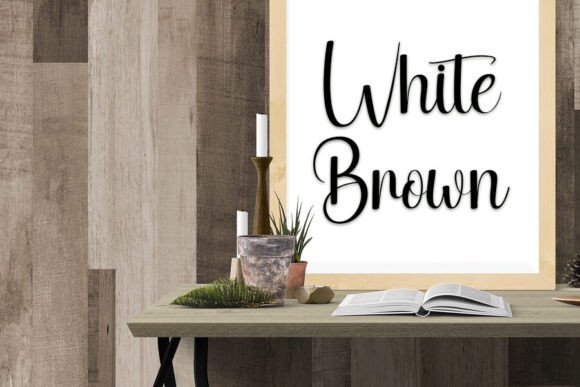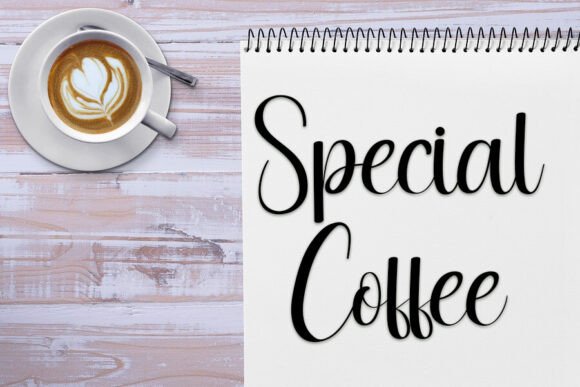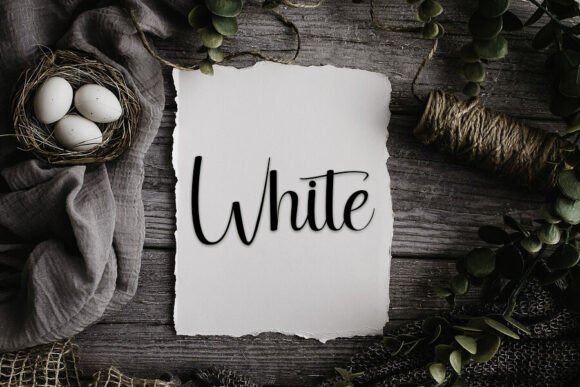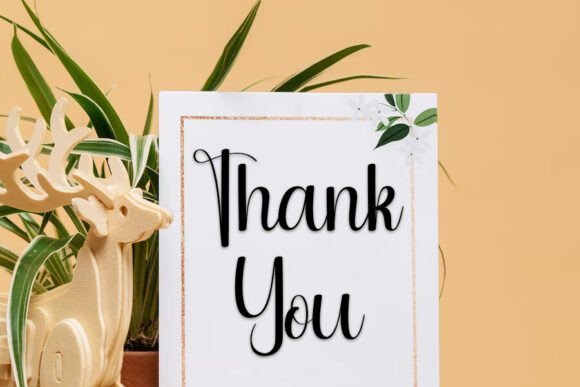
Unleash Elegance with Automatic Font: Elevate Your Designs to New Heights
In the realm of design, the right font can make all the difference. It can elevate your project from ordinary to extraordinary, conveying your message with clarity and style. If you’re on the hunt for a font that combines minimalist simplicity with stunning elegance, look no further than “Automatic.” This uniquely crafted font is designed to breathe life into your creative endeavors, offering a refreshing blend of sophistication and charm.
The Versatility of Automatic Font
One of the standout features of Automatic is its striking versatility. Whether you’re crafting captivating YouTube banners, designing thoughtful Wedding Invitations, or creating rich Cover Logo Mockups, this font adapts seamlessly to any project. Its clean lines and minimalist aesthetic make it perfect for a wide range of applications, from professional ID Cards and artistic Flyers to crafts and more.
Automatic’s ability to dominate in various design scenarios is a testament to its exceptional design. The font’s simplicity is not just a stylistic choice; it’s a strategic decision that allows it to pair well with virtually any design element, ensuring that your work stands out without overwhelming the senses.
Why Choose Automatic Font?
So, what makes Automatic a go-to choice for designers and crafters? Here are a few compelling reasons:
- Elegance and Sophistication: Automatic brings a wave of elegance and sophistication to your designs, making it perfect for projects that demand a high level of professionalism and style.
- Versatility: From YouTube banners to Wedding Invitations, and from Cover Logo Mockups to ID Cards, Automatic’s versatility knows no bounds.
- Simplicity: The font’s minimalist design ensures that your message is conveyed clearly and effectively, without any distractions.
- Uniqueness: In a sea of fonts, Automatic stands out with its unique charm, ensuring that your projects are memorable and impactful.
Applications of Automatic Font
The applications of Automatic are vast and varied. Here are some of the most notable ones:
- YouTube Banners: Make a lasting impression on your audience with banners that exude elegance and professionalism.
- Wedding Invitations: Add a touch of sophistication and romance to your wedding invitations, setting the tone for a memorable event.
- Cover Logo Mockups: Elevate your brand’s visual identity with stunning logo mockups that showcase your professionalism.
- ID Cards: Create professional and stylish ID cards that make a great impression.
- Flyers and Crafts: Bring a touch of elegance to your artistic projects, making them stand out in a crowd.
How to Use Automatic Font Effectively
To truly harness the power of Automatic, consider the following tips:
- Pair with Contrasting Fonts: Combine Automatic with fonts that have a bit more personality to create visual interest and hierarchy in your designs.
- Experiment with Colors: While Automatic works well with solid colors, don’t be afraid to experiment with gradients or textures to add depth to your designs.
- Play with Sizes: Use varying sizes of Automatic to create a visual hierarchy, making your most important messages stand out.
Automatic Font is more than just a font; it’s a design statement. Its unique blend of minimalist simplicity and stunning elegance makes it an indispensable tool for designers and crafters looking to elevate their projects. Whether you’re aiming to create captivating banners, thoughtful invitations, or professional ID cards, Automatic guarantees impactful results that will make your business thrive. So, why wait? Own your space with Automatic, and watch your designs skyrocket into the realm of remarkable.